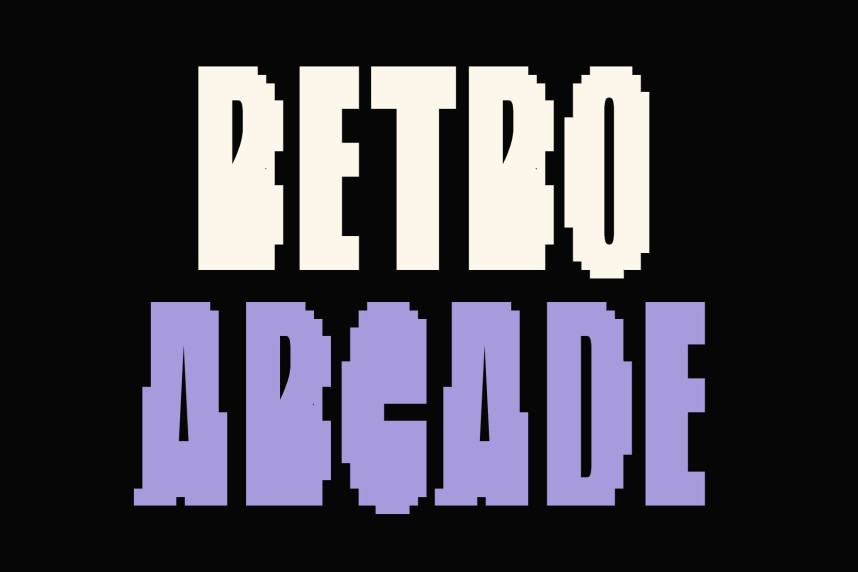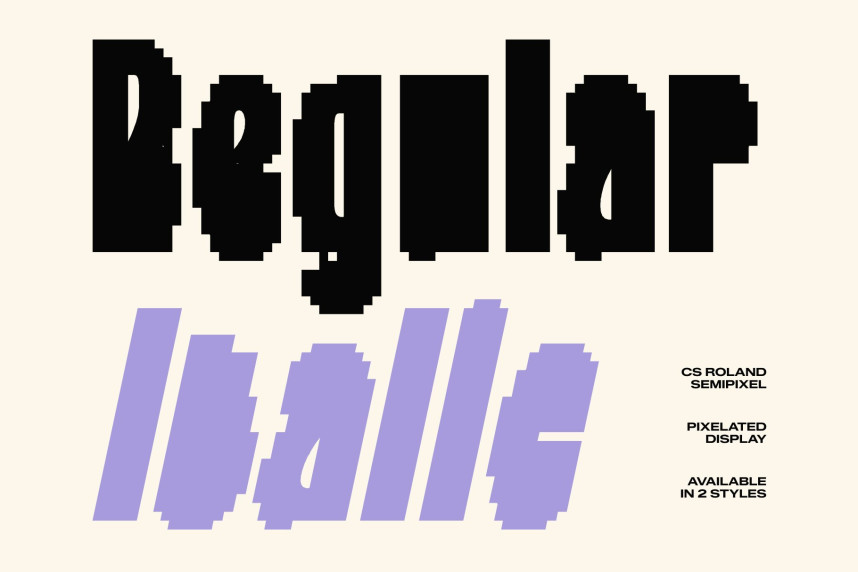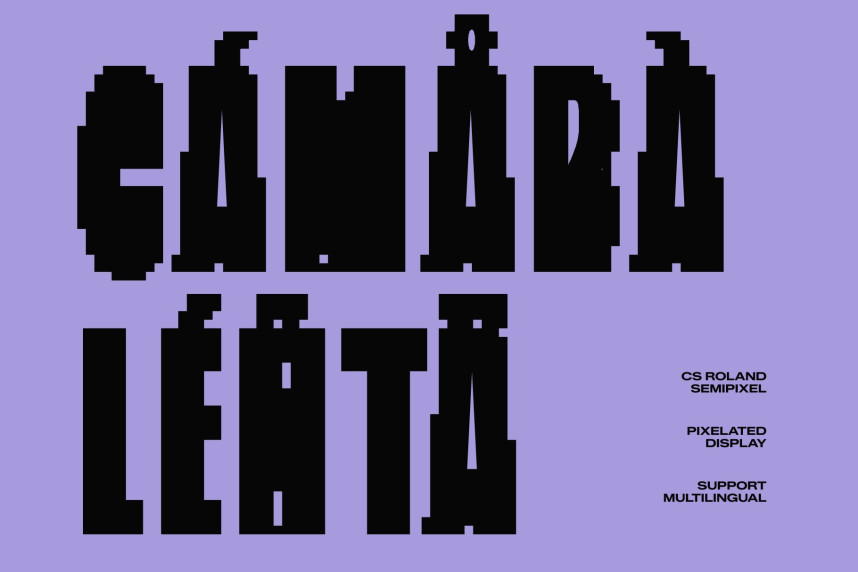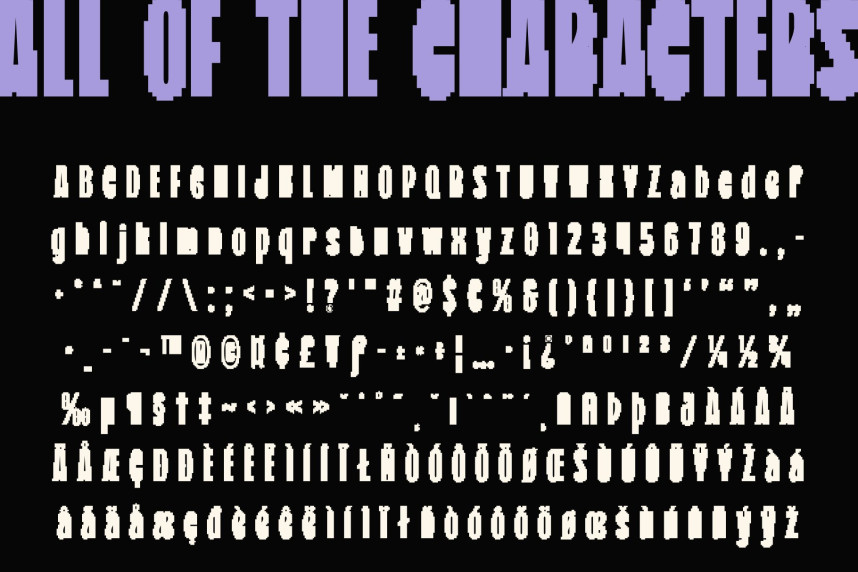
CS Roland Semipixel Font
CS Roland Semipixel Font – Modern Sans Serif Font: Where Minimalist Strength Meets Digital Refinement
Strong, Clean Forms with Contemporary Confidence
This is a modern sans serif font designed with bold, clean letterforms that communicate clarity, structure, and confidence. Its contemporary construction emphasizes simplicity and precision, creating a strong visual presence that feels professional, reliable, and highly versatile. Every character is carefully crafted to deliver maximum readability while maintaining a sleek and modern appearance.